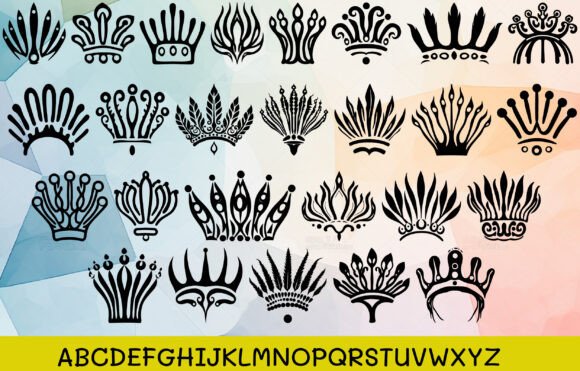
Crown Crown Polynesian Font: Elevate Your Designs with Regal Elegance
Are you a designer or crafter looking to add a touch of Polynesian artistry to your creative projects? Look no further than the Crown Crown Polynesian Font, a stunning collection of 26 unique crown-inspired designs, each paired with a letter from A to Z. This exquisite font is perfect for infusing your work with a sense of regal elegance and tropical flair.
What is Crown Crown Polynesian Font?
The Crown Crown Polynesian Font is a carefully crafted dingbats font that features 26 individual crown designs, each meticulously paired with a letter of the alphabet. This thoughtful design allows you to easily incorporate these beautiful crowns into your projects, adding a touch of sophistication and cultural inspiration. Whether you’re working on a graphic design project, crafting a logo, or creating digital art, this font is sure to impress.
Key Features of Crown Crown Polynesian Font
- 26 Unique Crown Designs: Each letter from A to Z is paired with a distinct crown design, offering a wide range of creative possibilities.
- Polynesian Artistry: Inspired by the rich cultural heritage of Polynesia, these crown designs bring a touch of tropical elegance to your projects.
The Crown Crown Polynesian Font is an ideal choice for designers and crafters seeking to add a unique and exotic touch to their work. Whether you’re creating:
- Logos and Branding: Stand out with a distinctive logo that incorporates the beauty of Polynesian art.
- Digital Art: Add a touch of elegance and whimsy to your digital art pieces.
- Stationery and Invitations: Elevate your paper crafts with regal and eye-catching designs.
- Web Graphics: Enhance your website or social media graphics with a dash of tropical flair.
Why Choose Crown Crown Polynesian Font?
With the Crown Crown Polynesian Font, you’ll enjoy:
- High-Quality Designs: Meticulously crafted to ensure clarity and beauty in every design.
- Versatility: Suitable for a wide range of projects, from digital art to print materials.
- Cultural Inspiration: Draw inspiration from the rich heritage of Polynesian art and culture.
The Crown Crown Polynesian Font is a valuable addition to any designer’s or crafter’s toolkit. With its 26 unique crown-inspired designs, paired with letters from A to Z, this font offers endless creative possibilities. Perfect for adding a touch of Polynesian artistry and regal elegance to your projects, this font is sure to impress. Download the Crown Crown Polynesian Font today and elevate your designs to new heights!